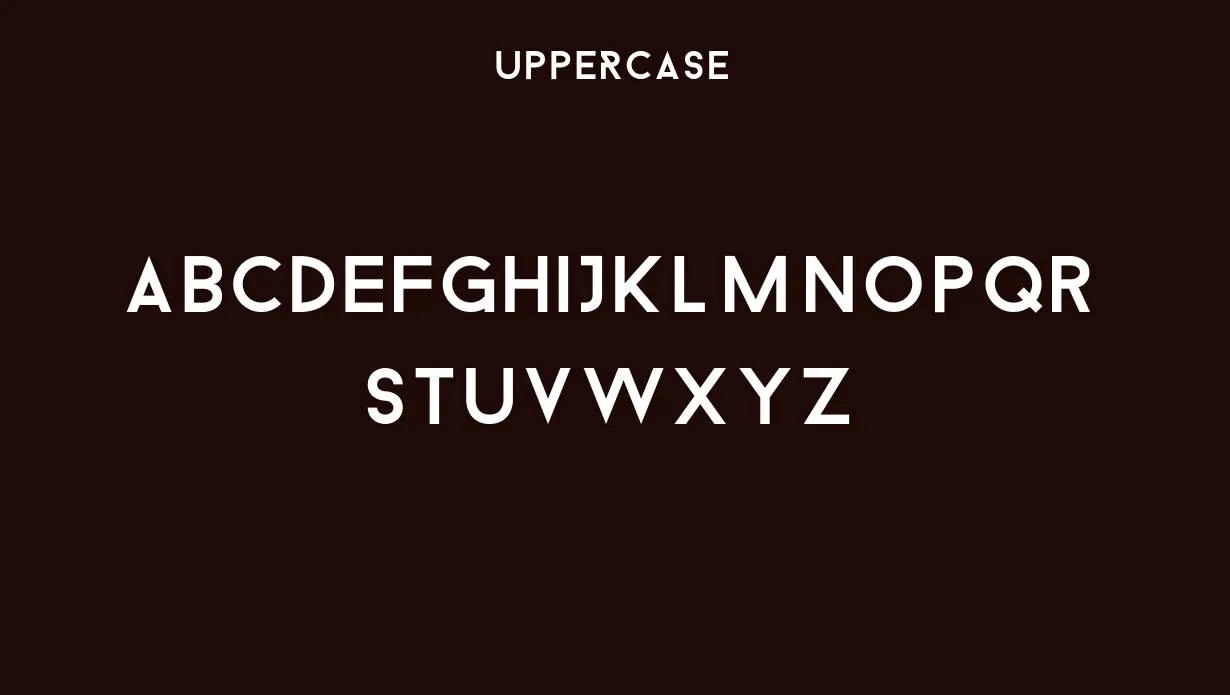
Droidiga Font is a very attractive and unique Sans-Serif Font that was designed by Frank Hememkem. It has two styles Droidiga Regular and Droidiga Bold.
The characters of this font are very different especially R and O. This font is in all capital letters with bold texture giving an immense look to your logos and other projects.
Droidiga Font Family
It contains 175 characters and 152 glyphs. It supports languages Latin, Greek, and Symbols. You can also use it for pairing it with other fonts like SF Diego Sans Font. use and You can download it on various devices for use as it supports file formats True Type Font and Open Type Font.